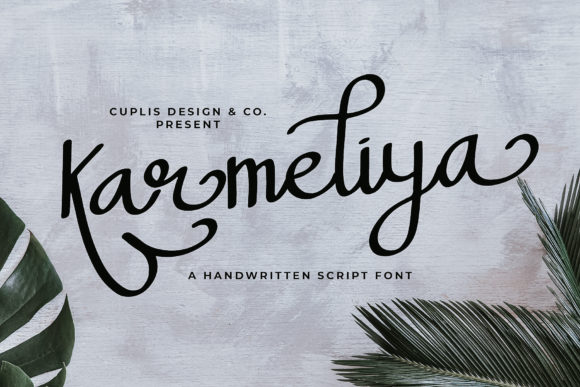
Prepare to be mesmerized by Karmeliya Font, the epitome of elegance and grace in the realm of handwritten script fonts. This exquisite creation by Dustfinger is an artistic masterpiece that breathes life into your creative projects, transforming them into breathtaking visual expressions.
Unleash your imagination and captivate your audience with Karmeliya's enchanting aura. Its meticulously crafted characters dance across your designs like a symphony of ink, adding a touch of sophistication and charm that is sure to leave a lasting impression.
Step into a world of endless possibilities with Karmeliya Font. Whether you're a passionate artist seeking to create captivating logos, a dedicated designer crafting exquisite labels, a fashion-forward entrepreneur revolutionizing clothing designs, or a hopeless romantic planning a dream wedding, Karmeliya is your perfect companion.
Express your love in a way that resonates with your soul through Karmeliya's beautiful wedding invitations. Let your words of affection flow effortlessly onto the page, adorned with Karmeliya's elegance, encapsulating the essence of your love story.
Aspiring bloggers and content creators, rejoice! Karmeliya Font is your secret weapon to captivate your audience and leave them yearning for more. Craft blog titles that ignite curiosity, headlines that demand attention, and YouTube video titles that entice viewers with their allure.
Musicians, artists, and creative professionals, unite! Karmeliya Font is your muse, ready to transform your album covers into masterpieces, breathe life into your quotes, and add a touch of magic to your designs.
With Karmeliya Font, your creative potential knows no bounds. Its PUA encoding grants you effortless access to a treasure trove of glyphs and swashes, empowering you to unleash your imagination and explore the depths of your creativity.
Embrace Karmeliya Font today and embark on an artistic journey like no other. Let your designs bloom with elegance, your words dance with grace, and your creativity soar to new heights. Immerse yourself in the world of Karmeliya Font, where beauty and inspiration intertwine to create masterpieces.